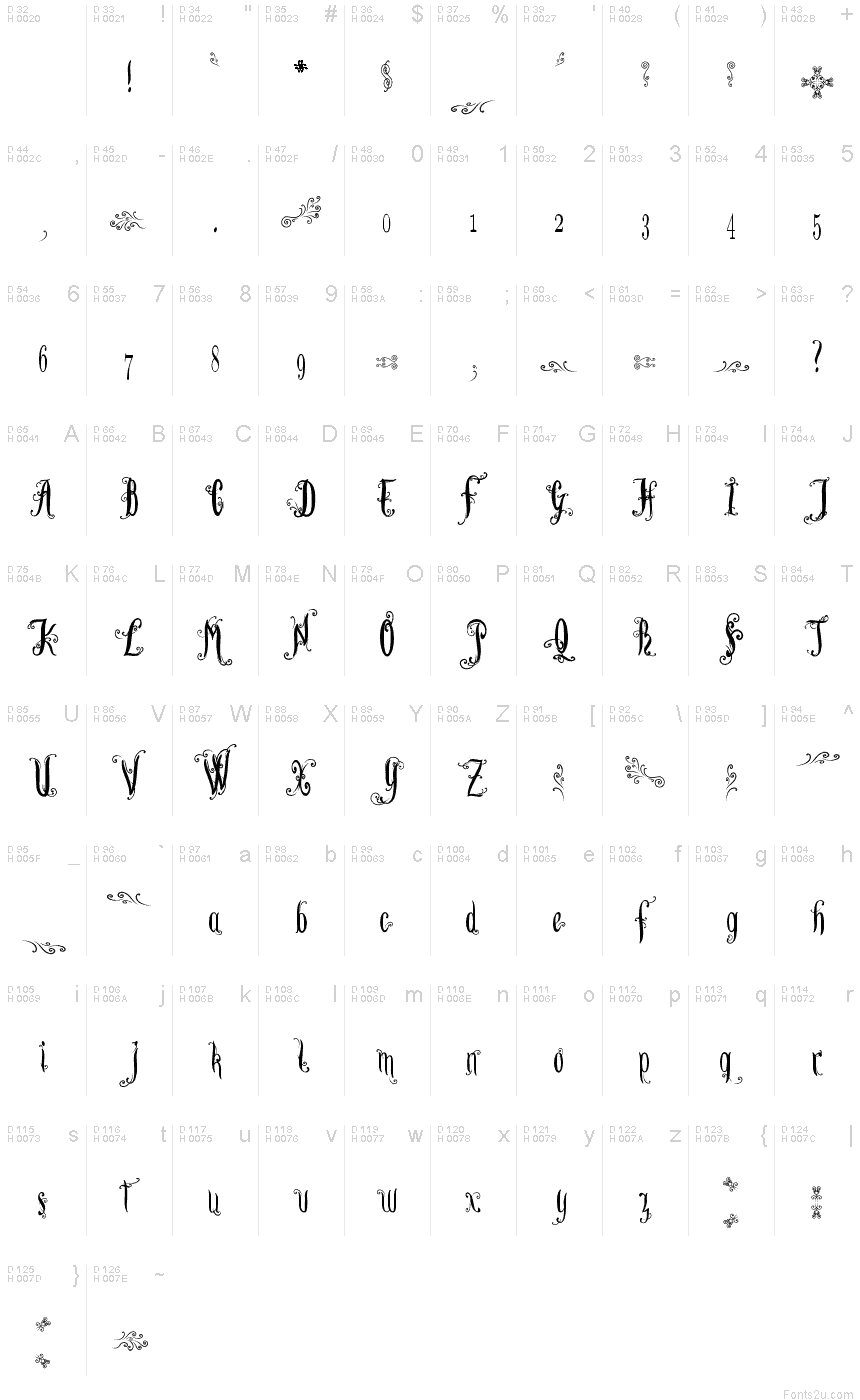
Lutin Flibuste by Paniquangoisse is a free curly decorative display font with tall, theatrical letters and extravagant looping flourishes. Strong changes in stroke width give the forms a lively, slightly unruly silhouette, with curls tucked into and around nearly every letter.
It suits brands built around cabaret, costume, confectionery, or storybook themes. The lettering can turn packaging or event posters into part of the decoration rather than acting as a neutral label. Its fanciful curls also fit children's publishing and stage graphics rooted in fairy tales or comic folklore.
Lutin Flibuste